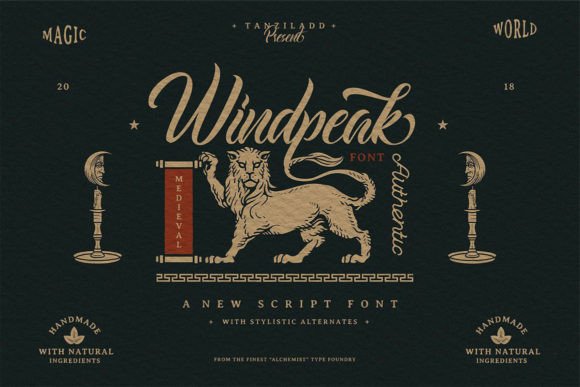
In a world craving authenticity and individuality, Windpeak Font emerges as a beacon of timeless allure. This retro script font, crafted by the visionary minds at JumboDesign, is a symphony of grace and boldness, exuding a commanding presence that captivates and inspires.
With its bold strokes and flowing lines, Windpeak Font harks back to a bygone era, evoking a sense of nostalgia and enduring charm. Each letter is meticulously designed to achieve perfect balance and harmony, resulting in an impactful design that demands attention.
Unleash your creativity and let Windpeak Font transform your branding materials, editorial layouts, and social media graphics into captivating masterpieces. This font is a versatile chameleon, effortlessly adapting to a myriad of design styles and concepts. Whether you seek a touch of vintage elegance or a dash of contemporary flair, Windpeak Font will elevate your creations to new heights of sophistication.
Transport your audience to a realm of timeless beauty with Windpeak Font. Its retro charm will infuse your projects with a sense of authenticity and depth, making them stand out from the ordinary. Embrace the power of Windpeak Font and unlock a world of endless creative possibilities.